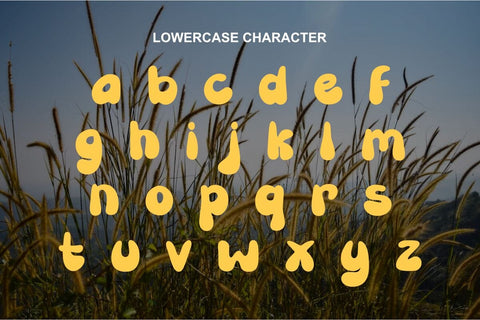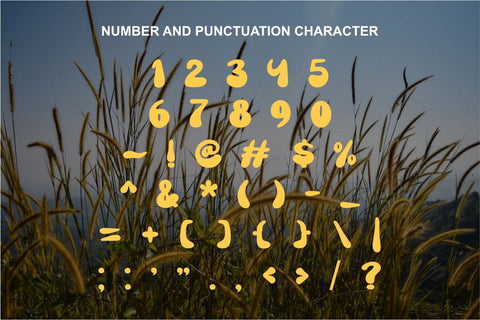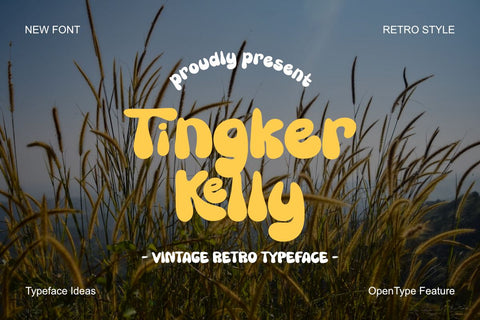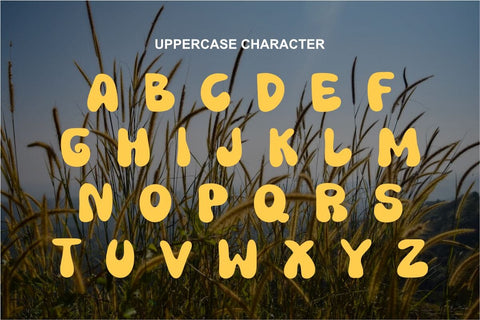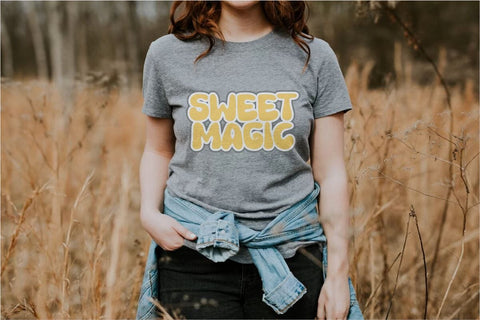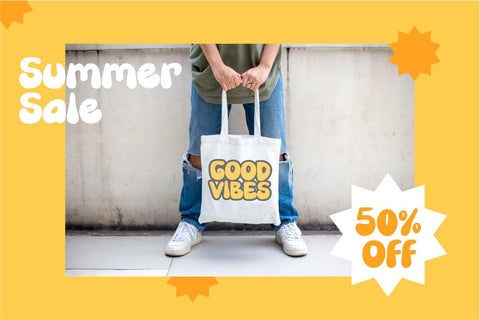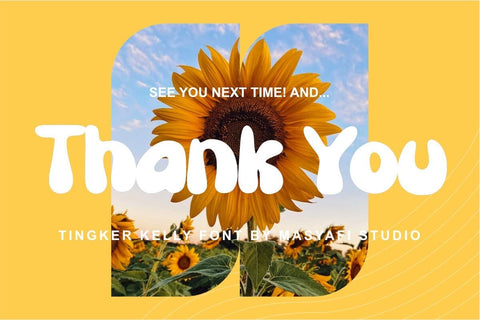
Tingker Kelly - Vintage Retro Font
Introducing **Tingker Kelly**: A captivating retro vintage display font tailor-made for t-shirts, stickers, DIY projects, crafts, POD (Print on Demand), printing, invitations, cards, and a plethora of creative ideas. With its user-friendly features, seamless installation, and OTF file format, Tingker Kelly effortlessly infuses nostalgia into your designs, adding a touch of timeless charm. Unlock the creative prowess of this font to craft designs that exude a vintage vibe and resonate with your audience. Whether you're a budding entrepreneur or a seasoned designer, Tingker Kelly is the perfect partner for bringing your artistic vision to life. Embrace the allure of yesteryears and elevate your projects with Tingker Kelly's enchanting aesthetic. Let your creativity soar with this mesmerizing font, empowering your designs to stand out in a crowd. Get ready to embark on a retro typographic journey that captures hearts and leaves a lasting impression. Elevate your creative endeavors with Tingker Kelly today!